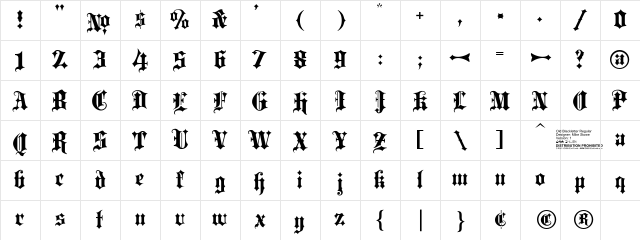
Complete LHFOldBlackletterRegular Medium glyph index. Displaying only characters natively supported by LHFOldBlackletterRegular Medium font.
LHFOldBlackletterRegular draws on the rich tradition of blackletter calligraphy, with dense, angular strokes that evoke medieval manuscripts and old-world craftsmanship.
Font Pairing: Pair with a clean neutral sans-serif for body copy to let LHFOldBlackletterRegular's character lead without overwhelming the composition.
Pro Tip: Reserve LHFOldBlackletterRegular for display and logo use - pair it with a clean sans-serif for body copy to prevent the composition from feeling oppressive.